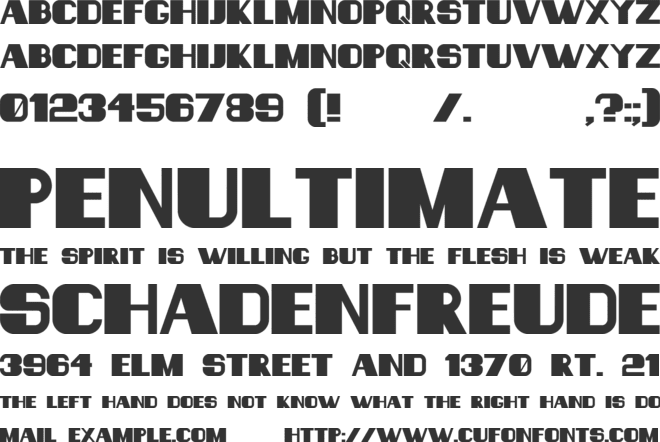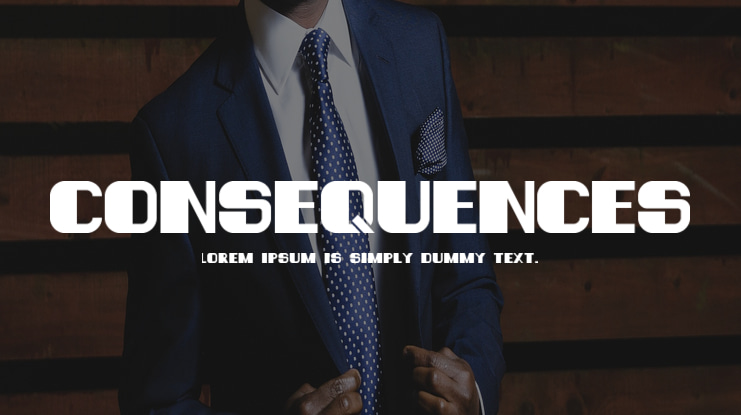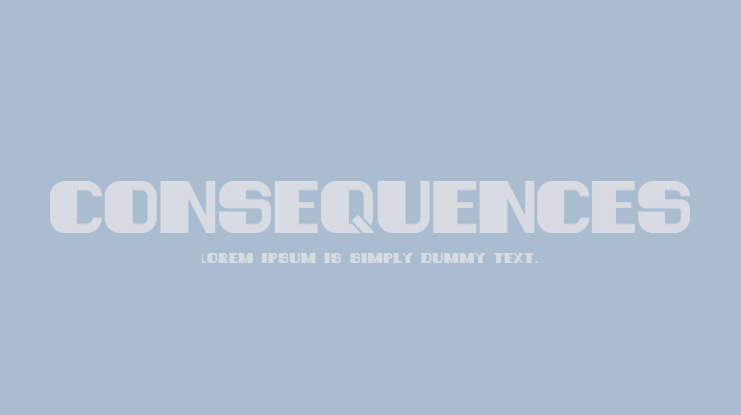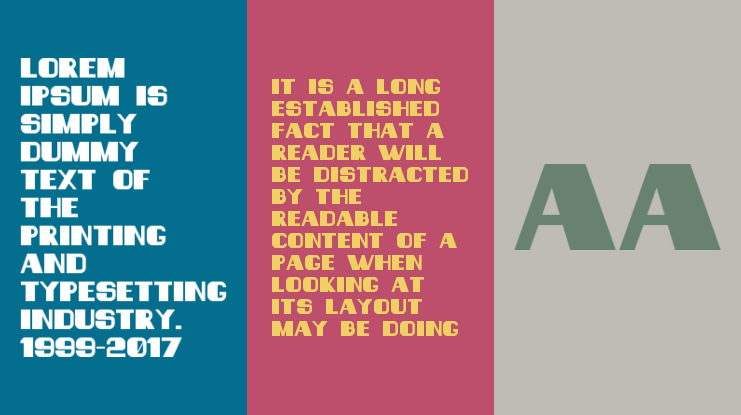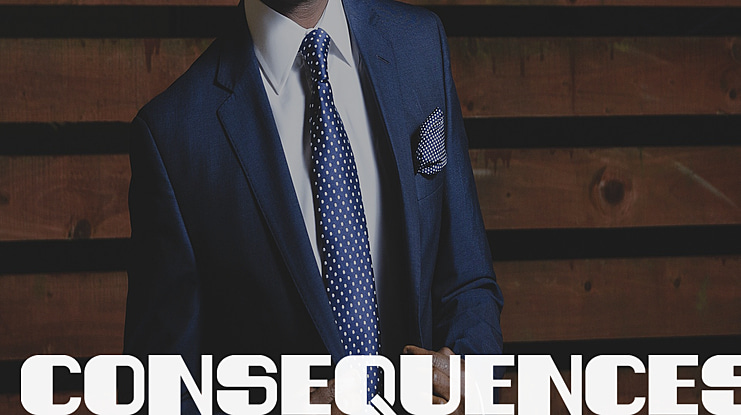
Consequences Font
Vladimir Nikolic
A classic and clean sans-serif font. Great for branding, logos, titling, signage, poster, flyers or t-shirts design, headlines and more!